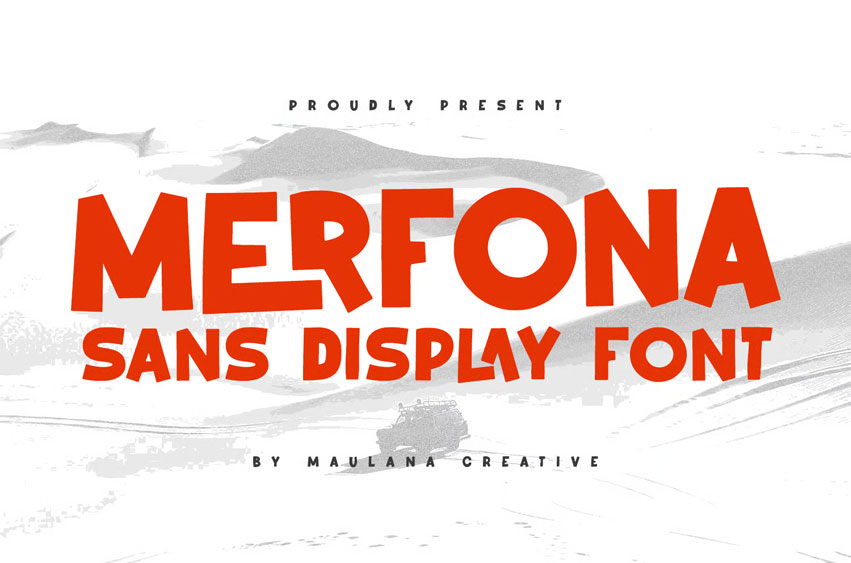
Merfona Font sans display font. Fun character with a bit of ligatures. To give you an extra creative work. This font is good for logo design, Social media, Movie Titles, book titles, short text, even long text letters, and is good for your secondary text font with script or serif. Make a stunning work with Merfona font.